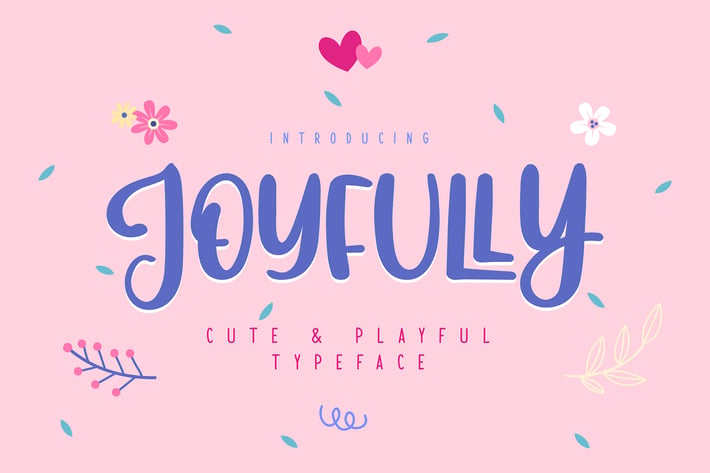
Joyfully | Cute & Playful Typeface
Joyfully | Cute & Playful Typeface with a calligraphy style, So beautiful on invitation like greeting cards, branding materials, business cards, quotes, posters, and more!